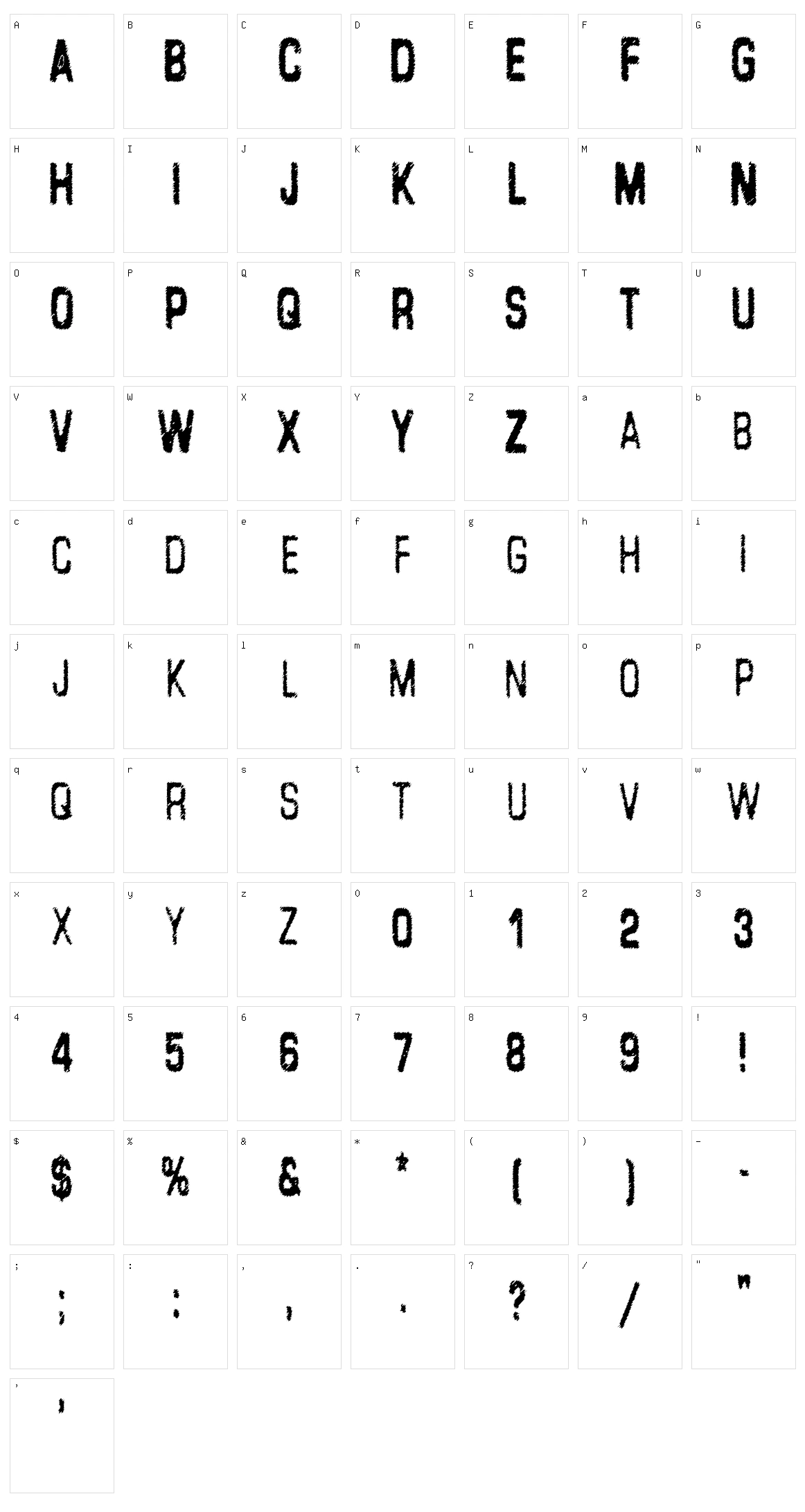
The free font Lead Coat is carefully designed by .ttf, showcasing a thoughtful balance of creativity and usability and falls under the Eroded font style. When you download the ZIP file, it contains only 38.84 KB of font files, making it lightweight and quick to download. Please review the license details below to understand permitted usage and distribution rights. If license information is not available, we recommend using this font for personal projects only or contacting the author directly for commercial usage permissions.